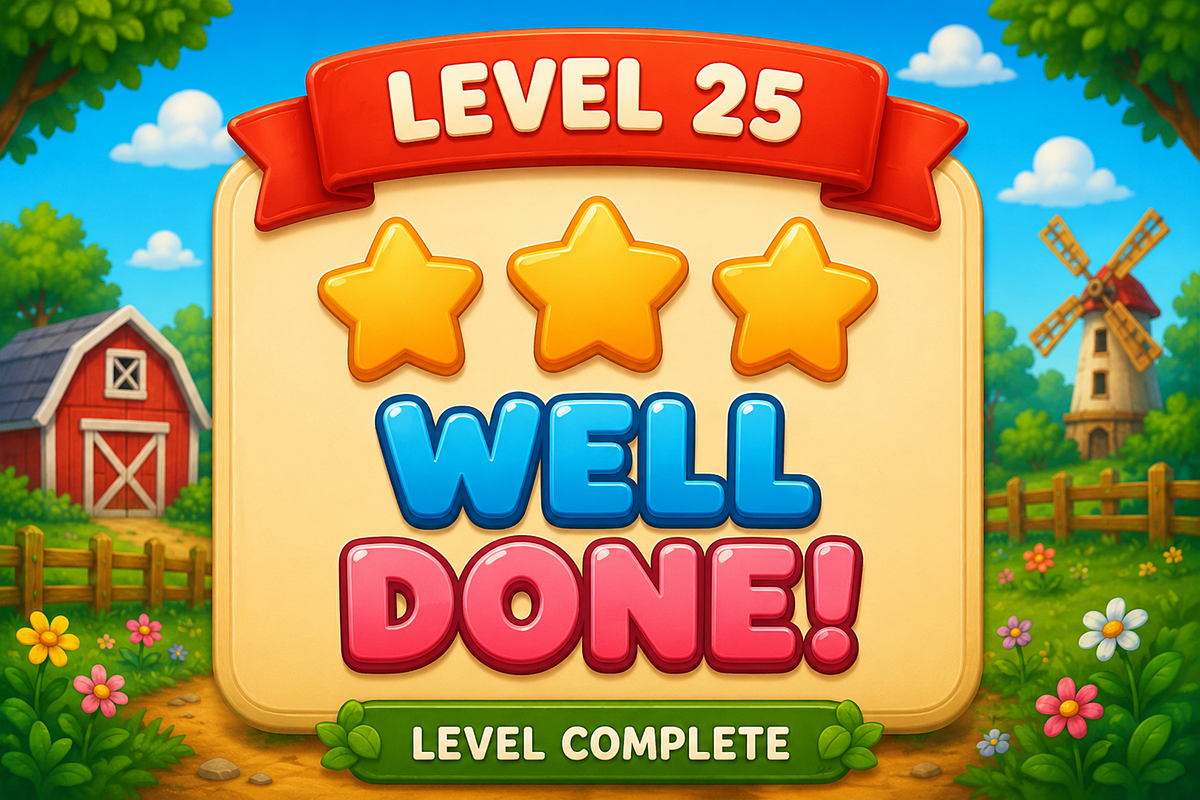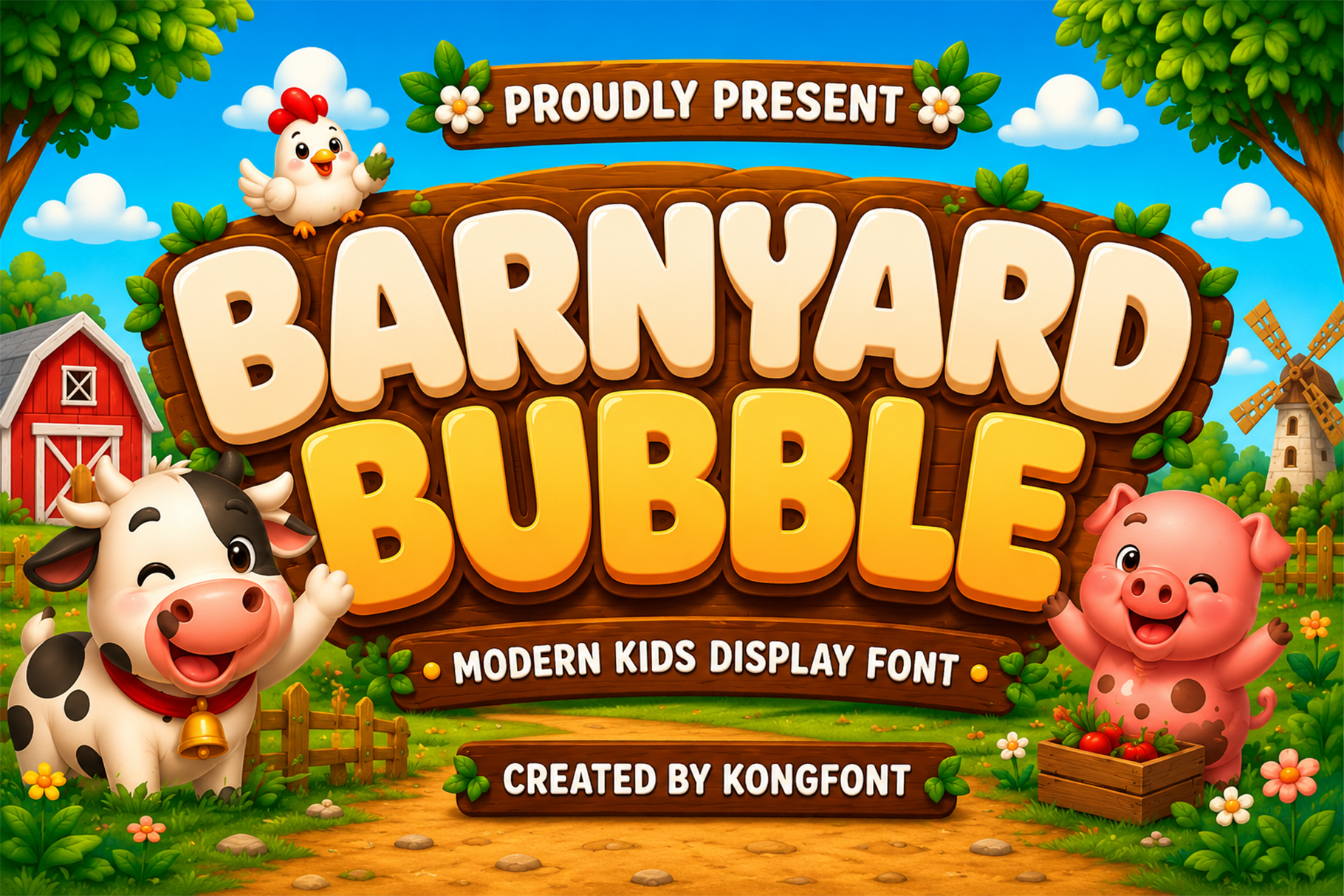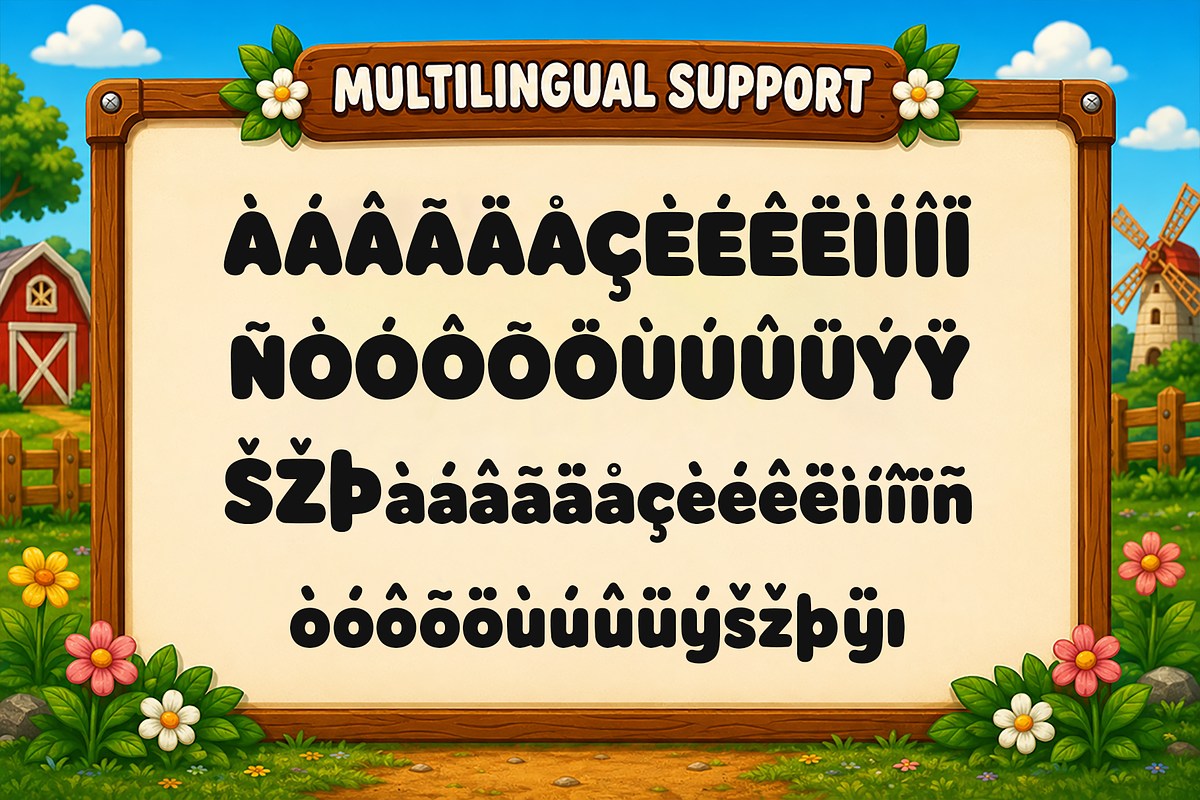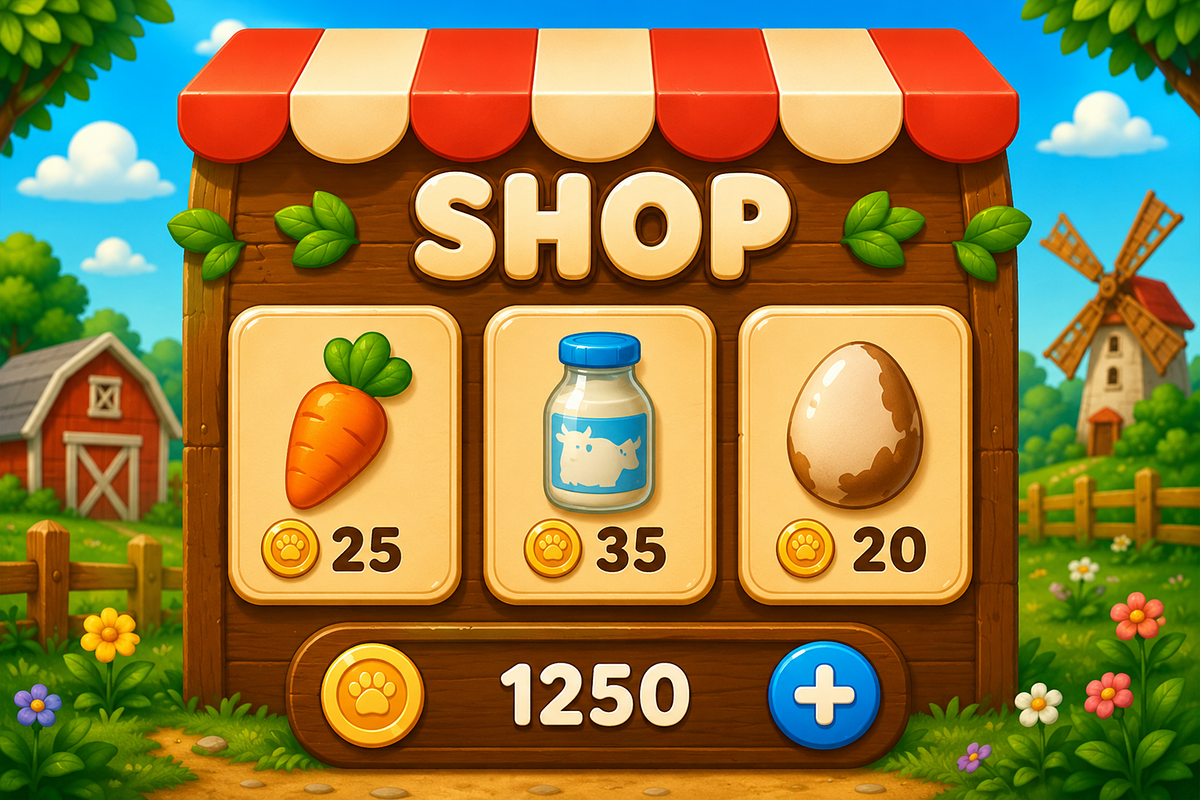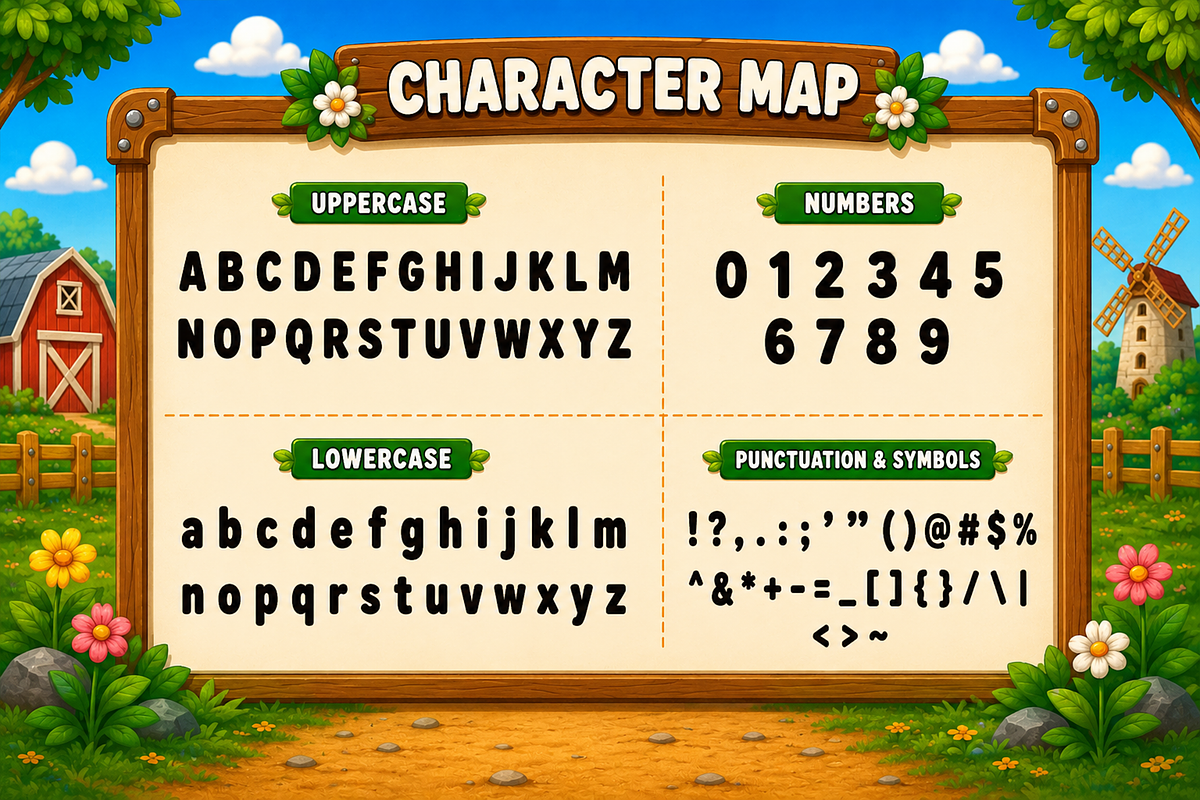
Barnyard Bubble - Kids Display Font
Barnyard Bubble - Modern Kids Display Font
Meet Barnyard Bubble, a modern kids display font bursting with cheerful personality and playful charm. Inspired by the fun of life on the farm, this typeface features chunky rounded letterforms, soft curves, and bubbly shapes that instantly create a warm, friendly, and energetic atmosphere. Its bold and adorable design makes every word feel exciting, making it the perfect choice for children's projects and family friendly branding.
Designed to capture young imaginations, Barnyard Bubble is ideal for children's books, educational materials, preschool activities, toy packaging, cartoon titles, mobile games, YouTube kids content, birthday invitations, classroom decorations, farm themed events, logos, stickers, apparel, and colorful merchandise. The smooth rounded forms provide excellent readability while maintaining a fun and engaging visual style that appeals to both children and parents.